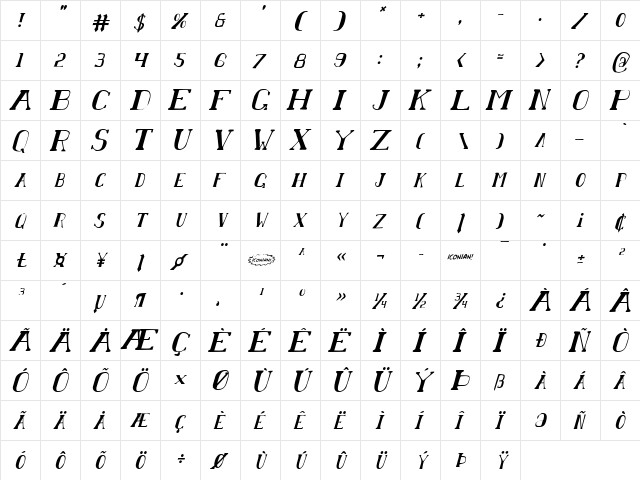
Design Context for Chardin Doihle Condensed Italic Typeface
Chardin Doihle Condensed Italic offers clean, dependable letterforms without strong stylistic allegiance, making it a practical choice for designers who need flexibility. Its italic angle brings a sense of urgency and motion to the letterforms. The condensed width makes it efficient for tight spaces without sacrificing legibility.
Pro Tip: Try Chardin Doihle Condensed Italic for annotation and caption copy alongside an upright companion — the contrast in angle creates a dynamic but ordered typographic system.